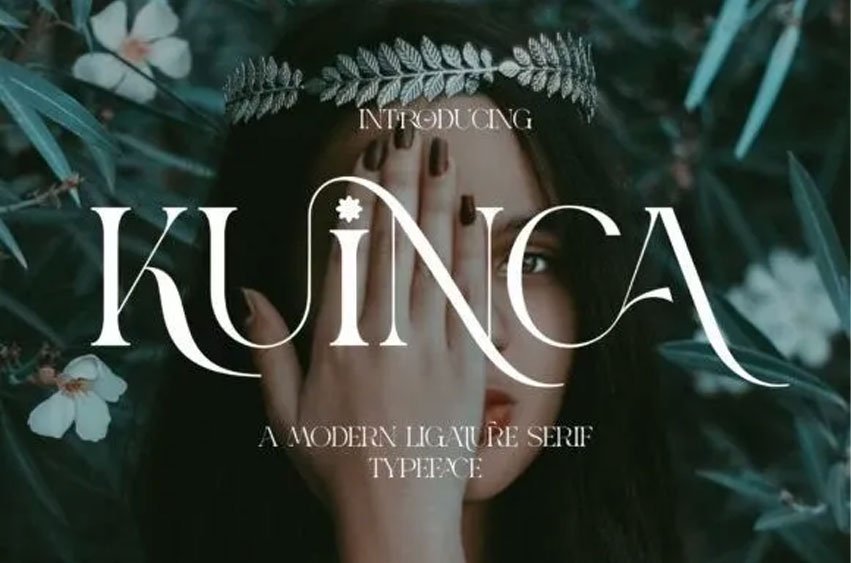
Kunica Font is a unique and very elegant font for branding and logo designs Elegant serif typeface combined with a classy and modern style. This type of font is very suitable for your various needs such as branding projects, logos, wedding designs, social media posts, advertisements, product packaging, product designs, labels, photography, watermarks, invitations, stationery, and any project, created with high level of readability. you will not be disappointed if you buy this font!!